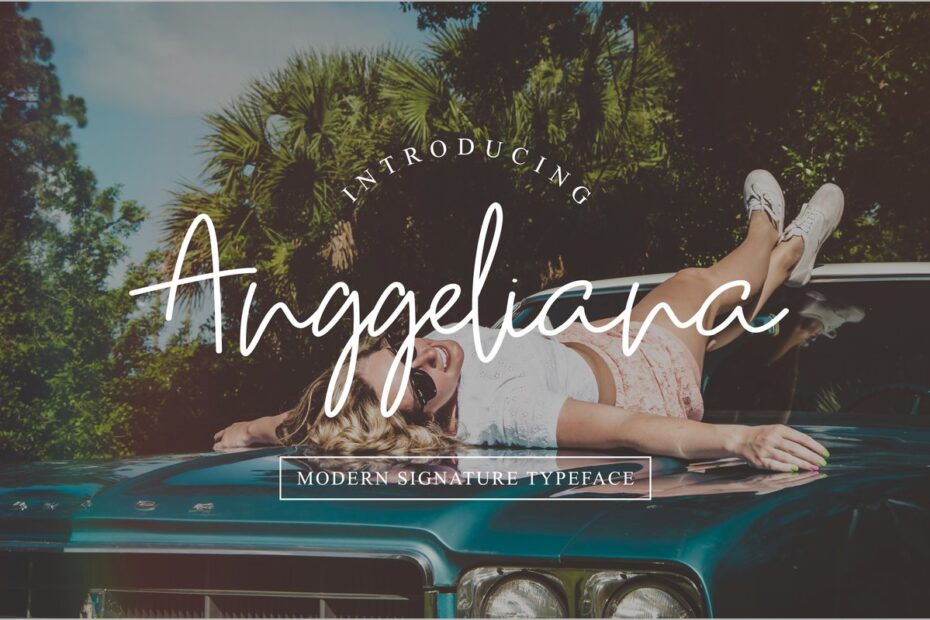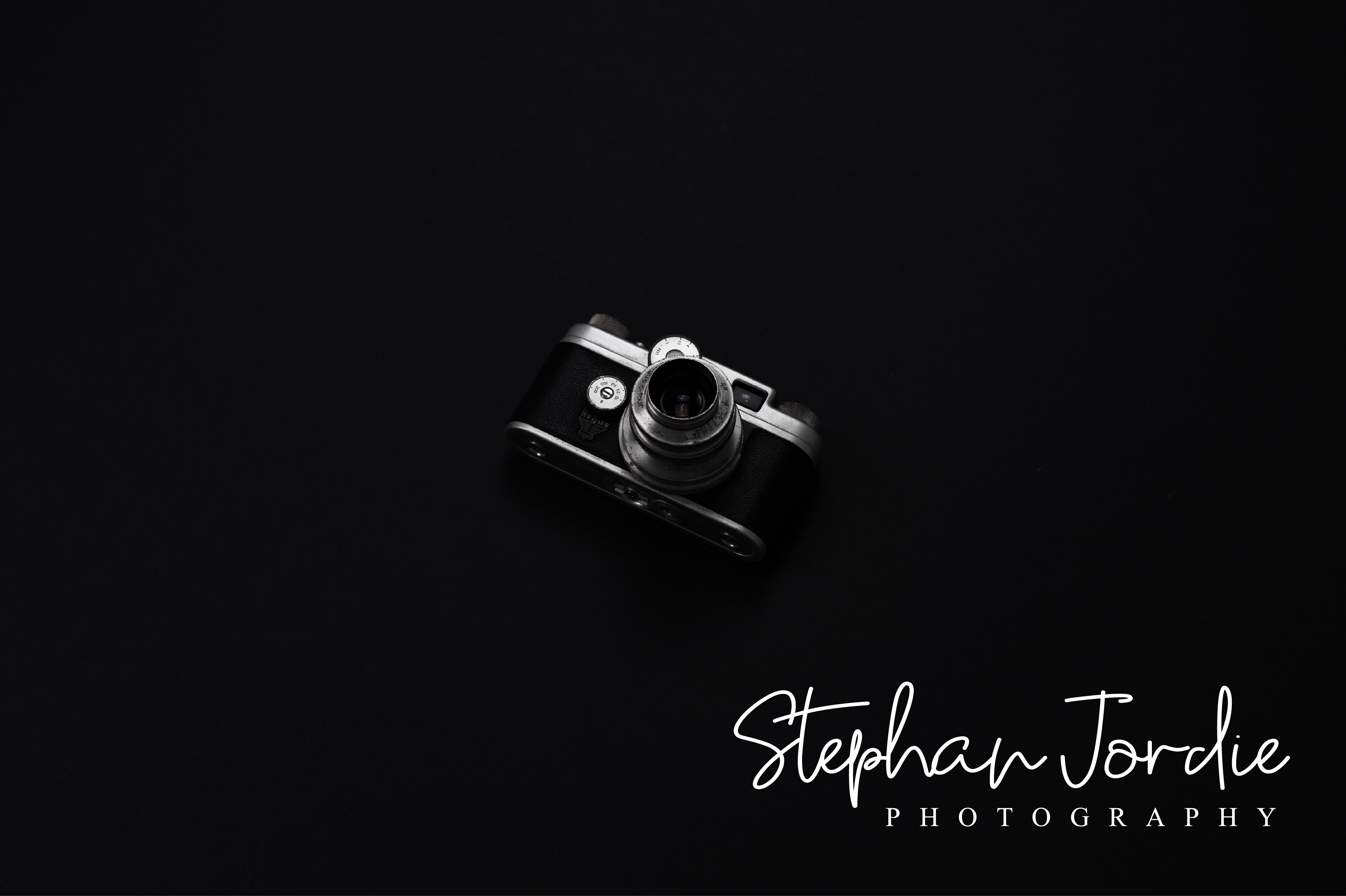
The Perfect Script: Elevate Your Art with Anggeliana Font
You’ve spent hours pouring your heart and soul into a new art project, and now it’s time to give it that final flourish. But what’s missing? A touch of personality, a dash of elegance, a hint of sophistication? That’s where the Anggeliana Font comes in – a beautiful, handwritten script font that adds a personal touch to your work.
This stunning font is designed to give your art a modern, classy look that’s sure to impress. Whether you’re a designer, artist, or simply a creative soul, the Anggeliana Font is an invaluable asset to have in your toolkit. With its elegant style and versatile usage, it’s the perfect addition to any project that requires a little extra flair.
- Font Family: Anggeliana
- Unique Characteristics: Anggeliana features a unique blend of modern and elegant script styles, making it ideal for creating eye-catching headings and titles.
As a designer, I was excited to dive into the Anggeliana Font and see what it has to offer. ✨ Here are some of its strengths:
- The font’s unique and playful style makes it perfect for projects that require a touch of whimsy and charm.
- The Anggeliana Font is highly legible, even at smaller font sizes, making it a great choice for body text.
- The font’s extensive character set and language support make it a great choice for multilingual projects.
- The font may not be the best choice for formal or professional projects, as its playful style may come across as unprofessional.
- The font’s unique style may not be to everyone’s taste, and some users may find it too ornate or distracting.
- The font’s high number of styles and weights can make it overwhelming to navigate and choose the right font for a project.
Overall, I think the Anggeliana Font is a great choice for designers who want to add a touch of personality and whimsy to their projects. While it may not be the best choice for every project, it’s definitely worth considering for the right kind of project.
Tips for Getting the Most Out of Anggeliana Font
Here are some tips to help you get the most out of the Anggeliana font:
- Use it consistently throughout your design to create a cohesive look.
- Pair it with other fonts to create a unique and interesting typography.
- Experiment with different font sizes and styles to add emphasis and create visual interest.
The Anggeliana font is commonly used in:
- Graphic design projects, such as brochures and business cards.
- Wedding invitations and other event materials.
Alternatives to Anggeliana Font
Playfair Display is a luxurious, high-end serif font that works well for headings and titles. It features elegant connections between letters and is perfect for formal designs.
Compared to Anggeliana Font, Playfair Display has a more formal and traditional feel, whereas Anggeliana Font has a more modern and minimalist design.
Great Vibes is a beautiful, elegant script font that is ideal for creating a sense of sophistication and luxury. It’s perfect for use in invitations, branding, and other high-end designs.
Compared to Anggeliana Font, Great Vibes has a more flowing and cursive feel, whereas Anggeliana Font has a more geometric and modern design.
Alex Brush is a elegant, handwritten script font that is perfect for use in creative and artistic designs. It features a unique, hand-drawn feel that adds a personal touch to any design.
Compared to Anggeliana Font, Alex Brush has a more casual and artistic feel, whereas Anggeliana Font has a more modern and minimalist design.
Lato is a clean, modern sans-serif font that is perfect for use in digital designs. It features a simple, geometric design that makes it easy to read on screens.
Compared to Anggeliana Font, Lato has a more straightforward and functional design, whereas Anggeliana Font has a more unique and decorative design.